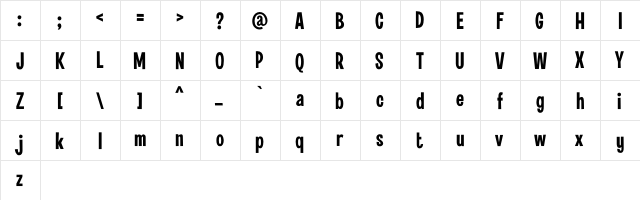
Fontwax Regular
| Foundry | Kustomtype |
| Designer | Kustomtype |
Design Context for Fontwax Typeface
Fontwax offers clean, dependable letterforms without strong stylistic allegiance, making it a practical choice for designers who need flexibility.